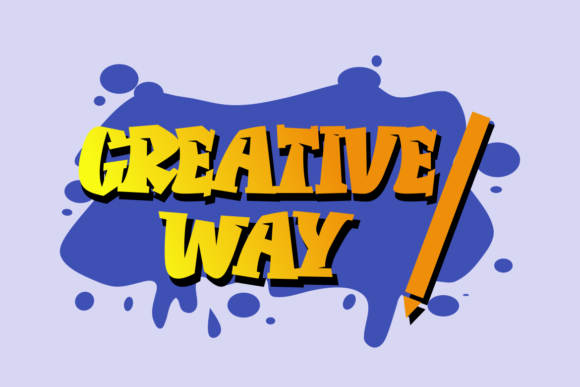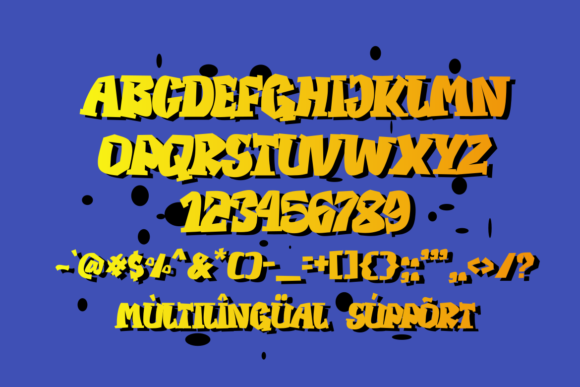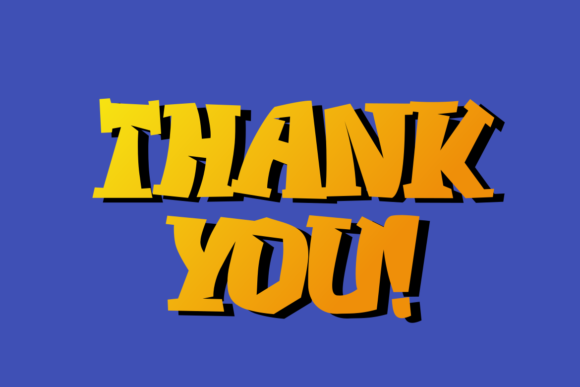
Unleash Your Creativity with Black Drop Font: The Ultimate Graffiti Styled Display Font
Are you a designer or crafter looking for a font that can add a touch of edginess and coolness to your designs? Look no further than Black Drop Font, a graffiti styled display font that is perfect for creating eye-catching and stylish designs. In this article, we’ll take a closer look at Black Drop Font, its features, and how you can use it to elevate your designs.
What is Black Drop Font?
Black Drop Font is a cool, graffiti styled display font that is designed to add a touch of street style to your designs. Its unique and edgy letterforms make it perfect for designs that require a bold and eye-catching font. Whether you’re designing a logo, advertisement, or t-shirt, Black Drop Font is sure to make your design stand out.
Features of Black Drop Font
Black Drop Font has several features that make it a great choice for designers and crafters. Some of its key features include:
- Graffiti Styled Letterforms: Black Drop Font features graffiti styled letterforms that are perfect for adding a touch of street style to your designs.
- Bold and Eye-Catching: The font is bold and eye-catching, making it perfect for designs that require a font that can grab attention.
- Street Style: Black Drop Font has a street style vibe that is perfect for designs such as t-shirts, sportswear, and logos.
- Versatile: The font is versatile and can be used for a variety of designs, including advertisements, clothing, and more.
Uses of Black Drop Font
Black Drop Font is a versatile font that can be used for a variety of designs. Some of the most popular uses of the font include:
- T-Shirts and Apparel: Black Drop Font is perfect for designing t-shirts, hoodies, and other apparel.
- Logos and Branding: The font can be used to create bold and eye-catching logos and branding materials.
- Advertisements: Black Drop Font is great for creating eye-catching advertisements that grab attention.
- Sportswear: The font is perfect for designing sportswear, such as jerseys and hats.
- Clothing and Accessories: Black Drop Font can be used to design clothing and accessories, such as bags, hats, and more.
Tips for Using Black Drop Font
Here are some tips for using Black Drop Font in your designs:
- Use it as a Display Font: Black Drop Font is best used as a display font, rather than a body font. Use it to create eye-catching headings and titles.
- Experiment with Colors: The font looks great in bold and bright colors, so don’t be afraid to experiment with different colors.
- Pair it with Other Fonts: Black Drop Font can be paired with other fonts to create a unique and stylish design.
- Keep it Simple: While Black Drop Font is a bold font, it’s best to keep your design simple and clean to ensure the font stands out.
Black Drop Font is a cool, graffiti styled display font that is perfect for designers and crafters looking to add a touch of street style to their designs. With its bold and eye-catching letterforms, the font is perfect for designs such as t-shirts, sportswear, logos, advertisements, clothing, and more. By following the tips outlined in this article, you can use Black Drop Font to create eye-catching and stylish designs that are sure to grab attention.